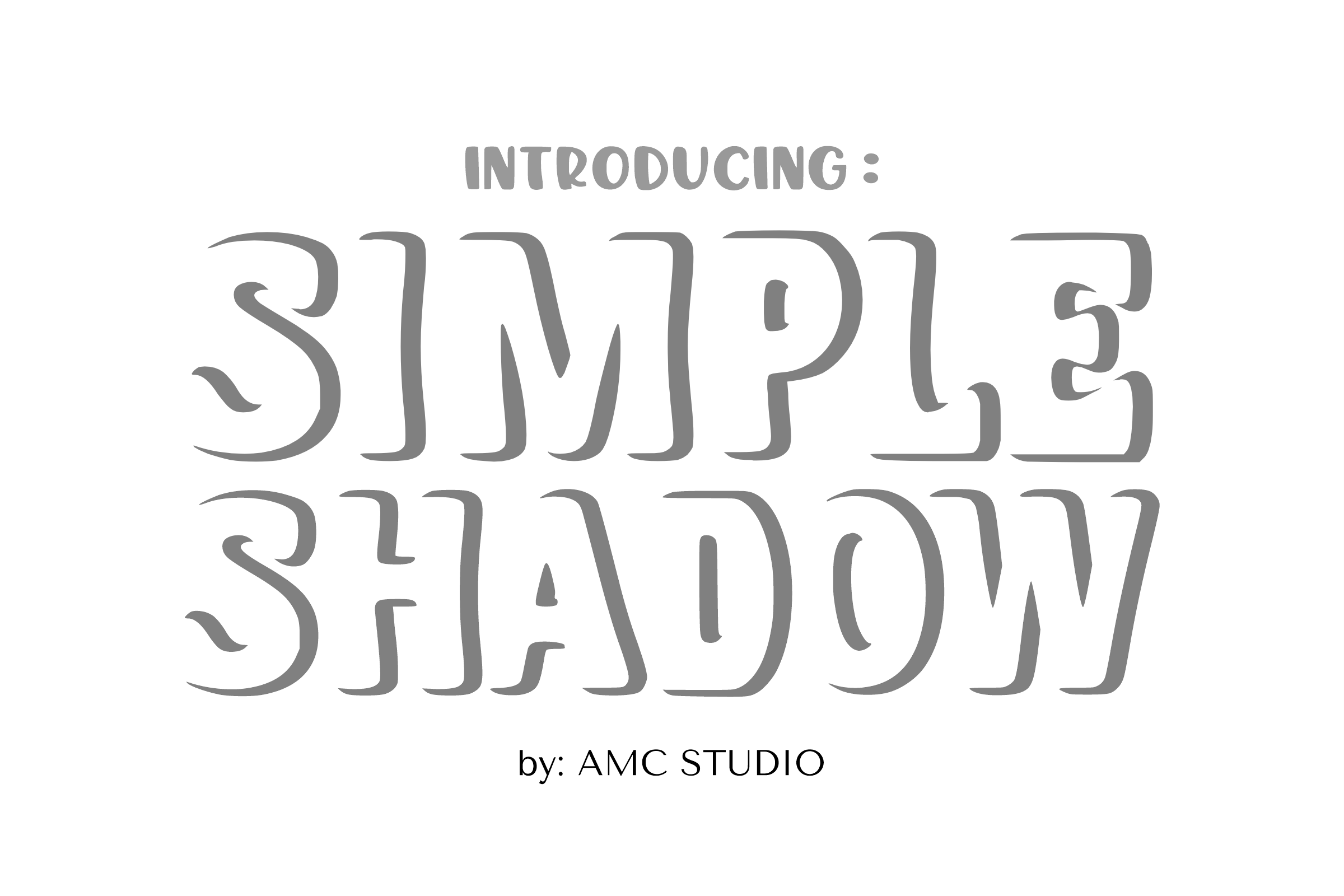
Simple Shadow - Shadow Font Types
Simple Shadow is an elegant and sweet Shadow typeface that captures the beauty of nature. With its unique elements and style, this typeface adds a touch of charm to your designs. Perfect for greeting cards, gift tags, this font brings a sense of elegance and nostalgia to your words. Let your typography shine.